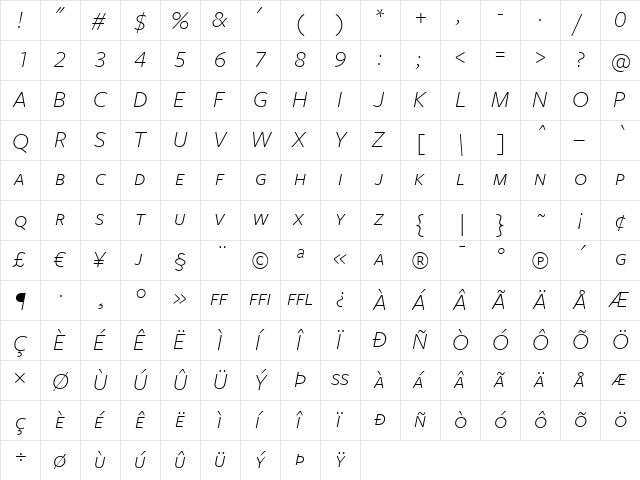
FreightSans LightItalicSC Font Preview
FreightSans LightItalicSC
| Foundry | Joshua Darden & Phil's Fonts, Inc |
| Designer | Joshua Darden |
Design Context for FreightSans Typeface
FreightSans offers clean, dependable letterforms without strong stylistic allegiance, making it a practical choice for designers who need flexibility. The slanted form adds forward momentum and visual energy. Its slender proportions lend an understated elegance to any composition.